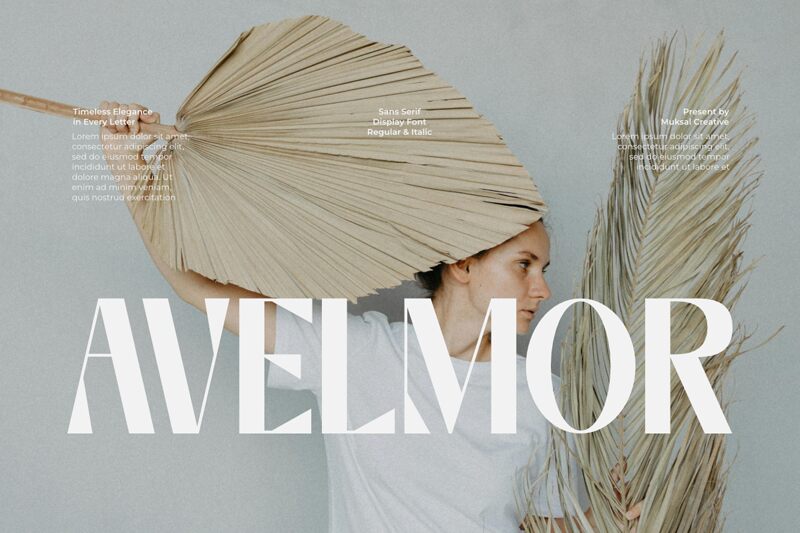
Avelmor font by Muksal Creative is a free sans serif adding a refined touch to your typography projects. It carries an elegant yet modern appearance making it look sophisticated and stylish. Whether in headlines or body copy, its visuals will not fail to make an impact on its reader.
And as a quick reminder, here are some projects this font is perfect for: poster design, branding, corporate identity, logo design, packaging, signage, stationery, social media posts, digital posts, mobile apps, websites, and any work that requires some elegance.